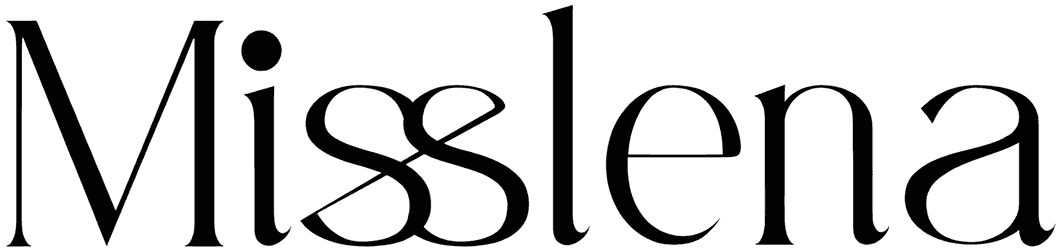
Misslena Font
Remarkable, timeless, and professional are the only true words we could find for describing a luxury serif font such as Misslena that perfectly suits a wide range of graphic content like business cards, stationaries, logos, diplomas, and academic presentations. Aside from not supporting numbers, this font can bring a feeling of formality, confidence, trustworthiness, and authenticity to all of your editorial projects.
Misslena. One of the most elegant, exquisite yet strong fonts. Misslena is made to bring out a modern and stylish view of what you make. Inspire your audience, clients, or guests with this beautiful, statement font.What’s included :
• Alternates
• Ligatures
• Multilingual Supports
• Numerals and PunctuationsHappy Design